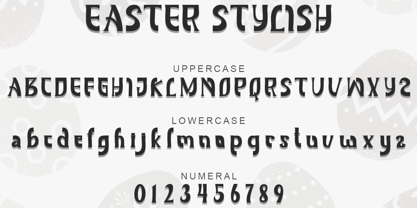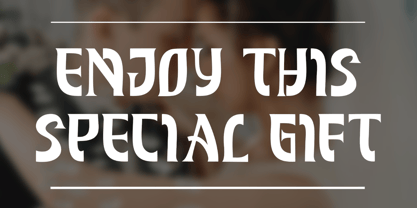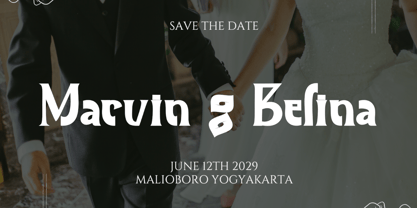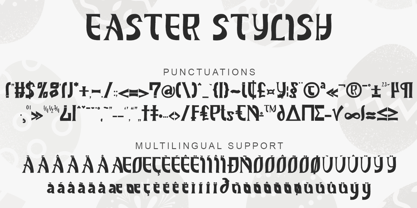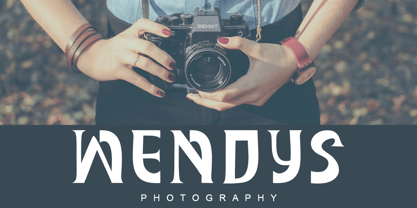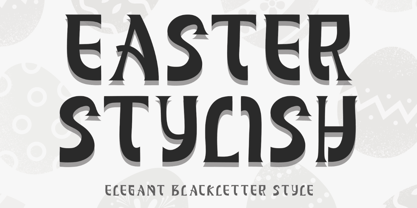
Easter Stylish
by Yoga Letter
The Easter Stylish Font Family was designed by Isroni Yoga Prasetya and published by Yoga Letter. Easter Stylish contains 1 styles.
"Easter Stylish" is an elegant and unique blackletter font. This font is equipped with uppercase, lowercase, numerals, punctuations and multilingual support. Very suitable for use for easter, st patrick's day, spring, summer, print, poster, branding, sticker, logo, business branding, social media and others.
Designers: Isroni Yoga Prasetya
Publisher: Yoga Letter
Foundry: Yoga Letter
Design Owner: Yoga Letter